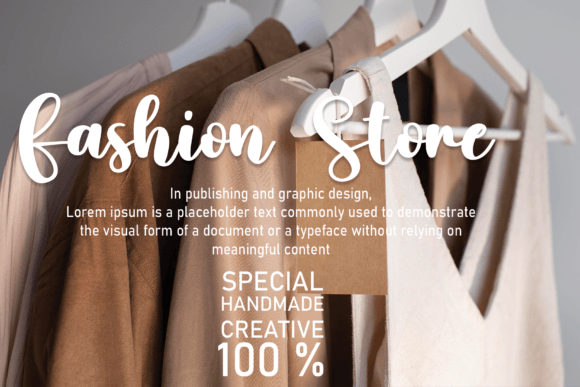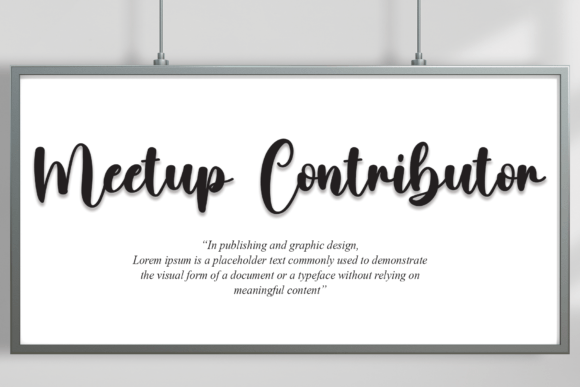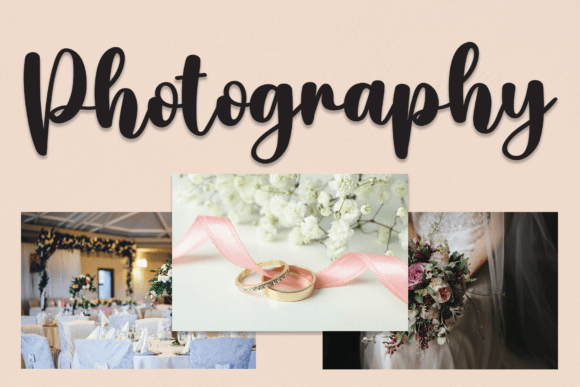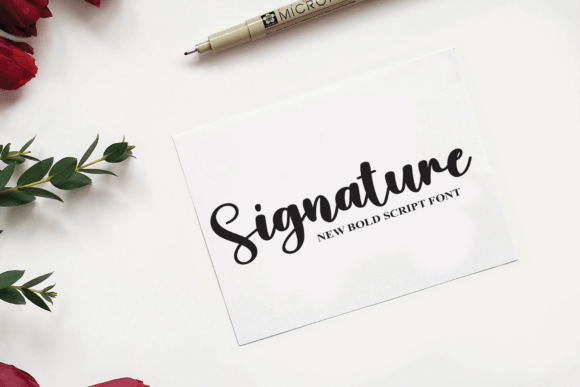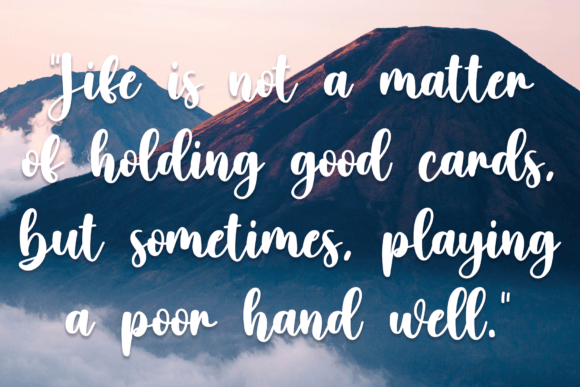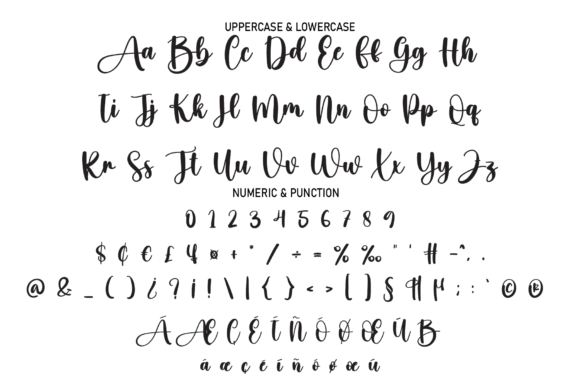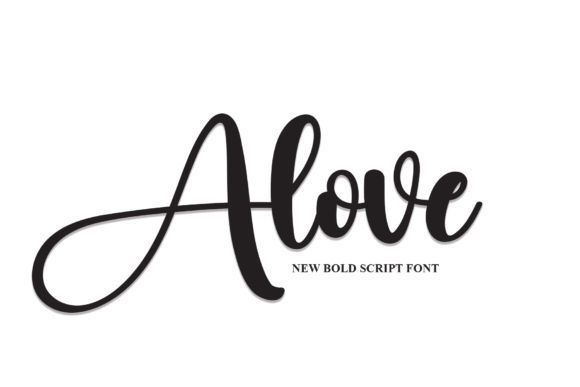
Introducing Alove Font: The Perfect Handwritten Touch for Your Designs
Are you looking for a font that adds a personal and loving touch to your designs? Look no further than Alove Font, a beautiful handwritten font that is perfect for a wide range of projects. From wall displays and wedding invitations to social media posts and product packaging, Alove Font is the ideal choice for designers and crafters who want to add a touch of elegance and sophistication to their work.
What is Alove Font?
Alove Font is a lovely handwritten font that is designed to bring a sense of warmth and personality to your designs. Its flowing script and delicate lines make it perfect for creating beautiful and eye-catching text that stands out from the crowd. Whether you’re designing a wedding invitation, a social media post, or a product label, Alove Font is the perfect choice for adding a handwritten touch to your work.
What Can I Use Alove Font For?
Alove Font is a versatile font that can be used for a wide range of projects, including:
- Wall displays: Add a personal touch to your wall art with Alove Font.
- Wedding invitations: Make your wedding invitations truly special with this beautiful handwritten font.
- Social media posts: Stand out on social media with eye-catching text that showcases your personality.
- Logos: Create a unique and memorable logo for your business or brand.
- Advertisements: Add a touch of elegance to your ads with Alove Font.
- Product packaging: Make your product packaging truly special with this beautiful font.
- Product designs: Add a personal touch to your product designs with Alove Font.
- Labels: Create beautiful and eye-catching labels for your products or gifts.
- Photography: Add a watermark or text overlay to your photos with Alove Font.
- Invitations: Create beautiful and personalized invitations for any occasion.
- Stationery: Add a touch of elegance to your stationery with Alove Font.
Why Choose Alove Font?
There are many reasons why Alove Font is the perfect choice for designers and crafters, including:
- Unique and handwritten: Alove Font has a unique and handwritten feel that sets it apart from other fonts.
- Elegant and sophisticated: This font is perfect for adding a touch of elegance and sophistication to your designs.
- Versatile: Alove Font can be used for a wide range of projects, from wall displays to product packaging.
Tips for Using Alove Font
Here are a few tips for getting the most out of Alove Font:
- Use it sparingly: Alove Font is a beautiful font, but it can be overwhelming if used too much. Use it sparingly to add a touch of elegance to your designs.
- Experiment with colors: Alove Font looks great in a variety of colors, so don’t be afraid to experiment and find the perfect color for your design.
- Pair it with other fonts: Alove Font pairs well with other fonts, so try pairing it with a bold font for a striking contrast.
Alove Font is a beautiful handwritten font that is perfect for designers and crafters who want to add a touch of elegance and sophistication to their work. With its flowing script and delicate lines, this font is sure to make your designs stand out from the crowd. Whether you’re designing a wedding invitation, a social media post, or a product label, Alove Font is the perfect choice. So why wait? Download Alove Font today and start creating beautiful and eye-catching designs!